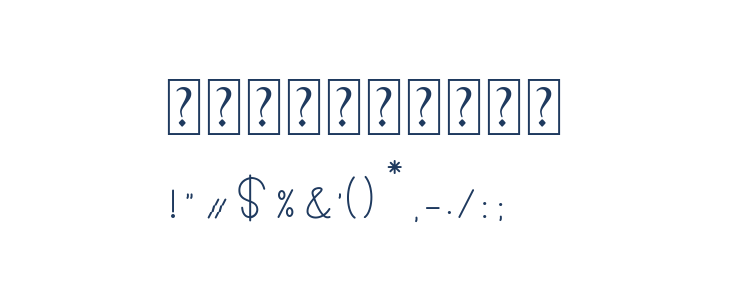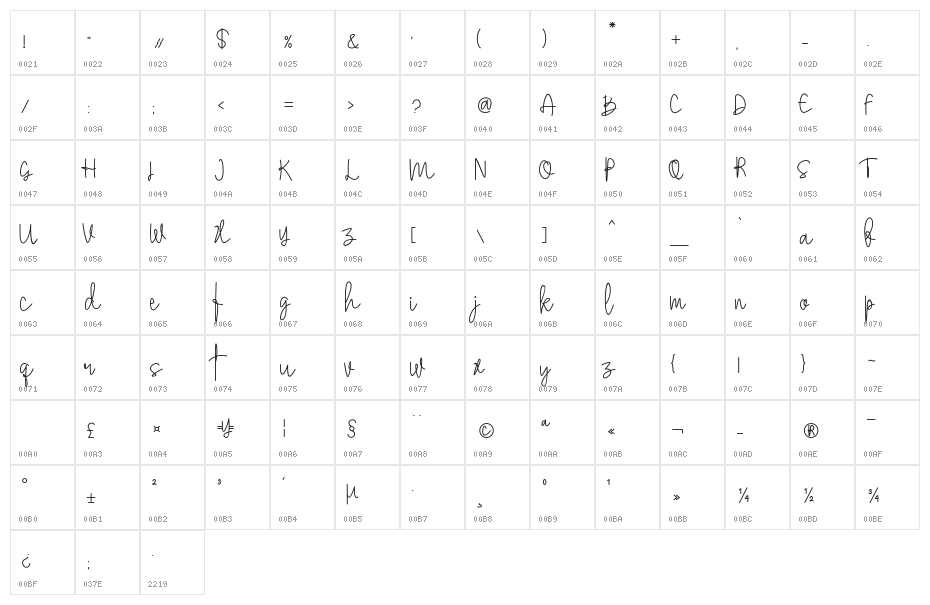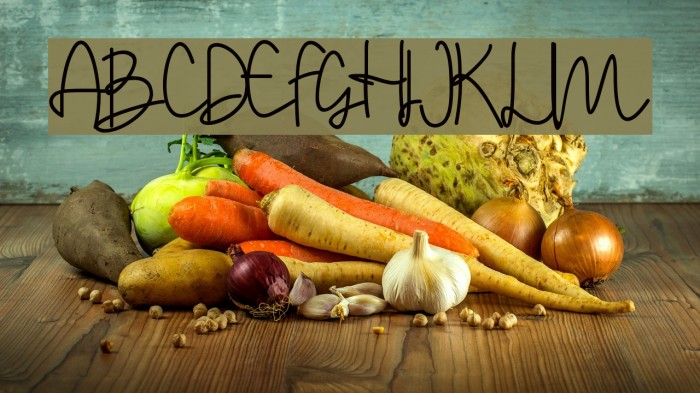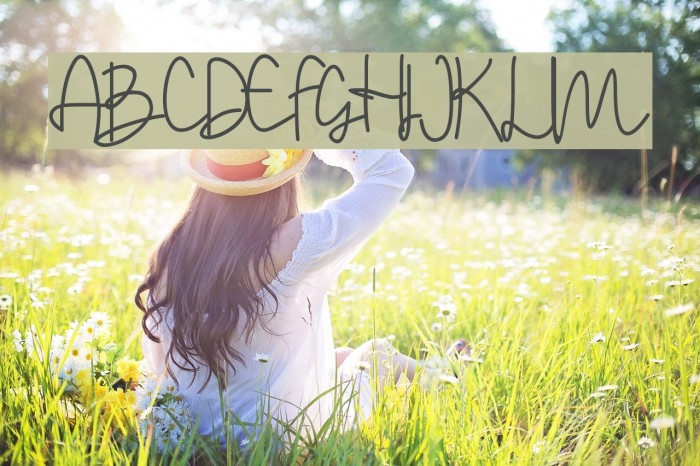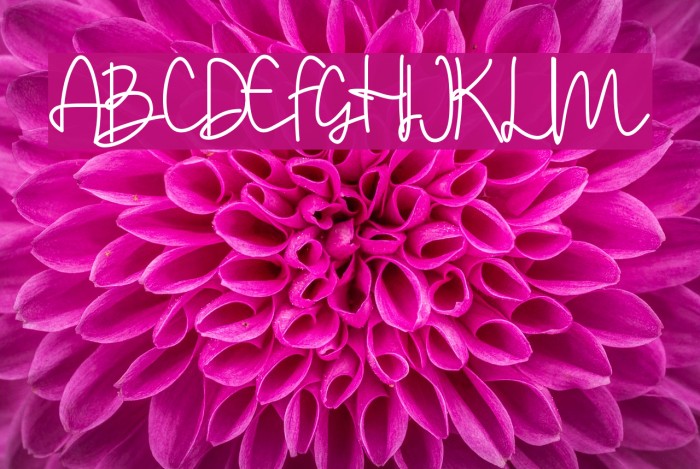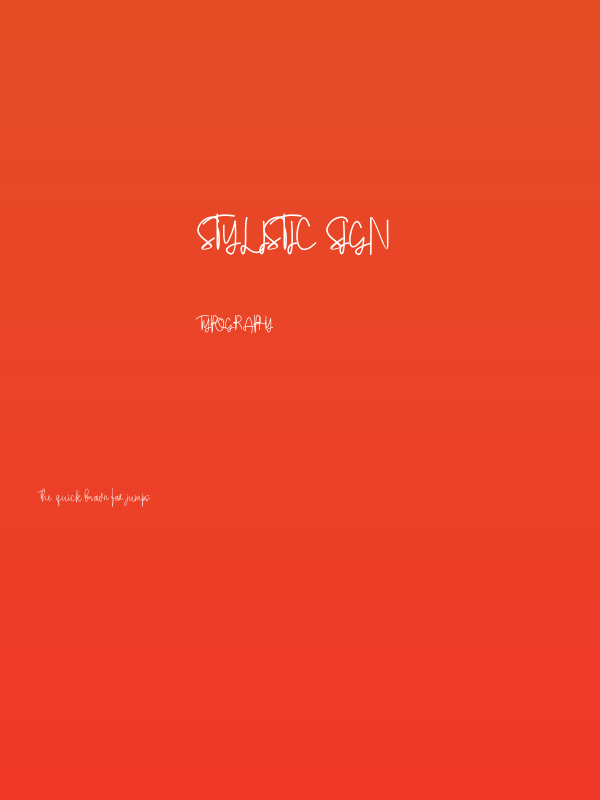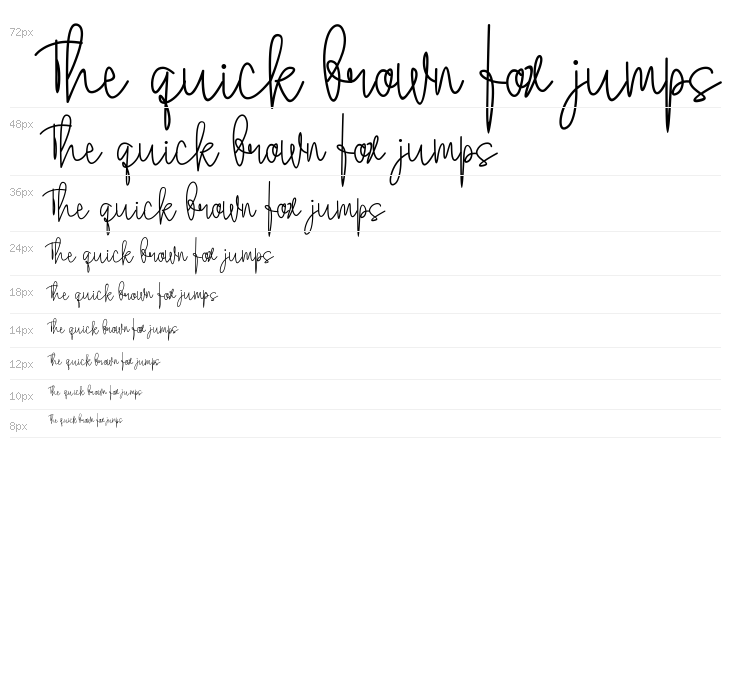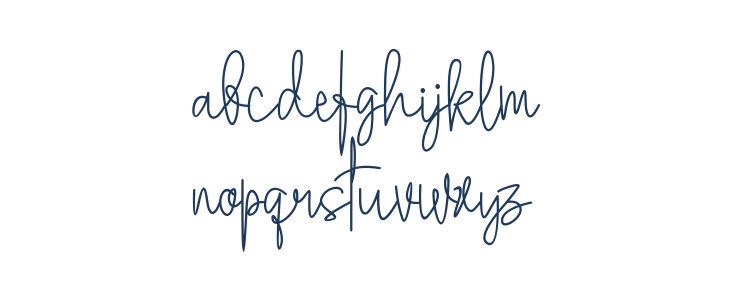
Stylistic Sign Font
Stylistic Sign Description
This font features a handwritten, cursive style with a playful and artistic flair. The letters are connected in a fluid manner, giving it a natural and flowing appearance. The uppercase and lowercase letters maintain a consistent style, with loops and curves that enhance its casual elegance. The font includes a full set of numerals and a variety of special characters, making it versatile for different design needs. Its unique style is perfect for projects that require a personal touch or a creative, informal look.
Haksen Letters - Sarwo Edhi Prayitno
| Overall Style | Casual, Artistic |
| Use Case | Logos, Invitations, Personal Branding |
| Proposed Projects | Ideal for greeting cards, invitations, personal branding, and creative projects that require a handwritten touch. |